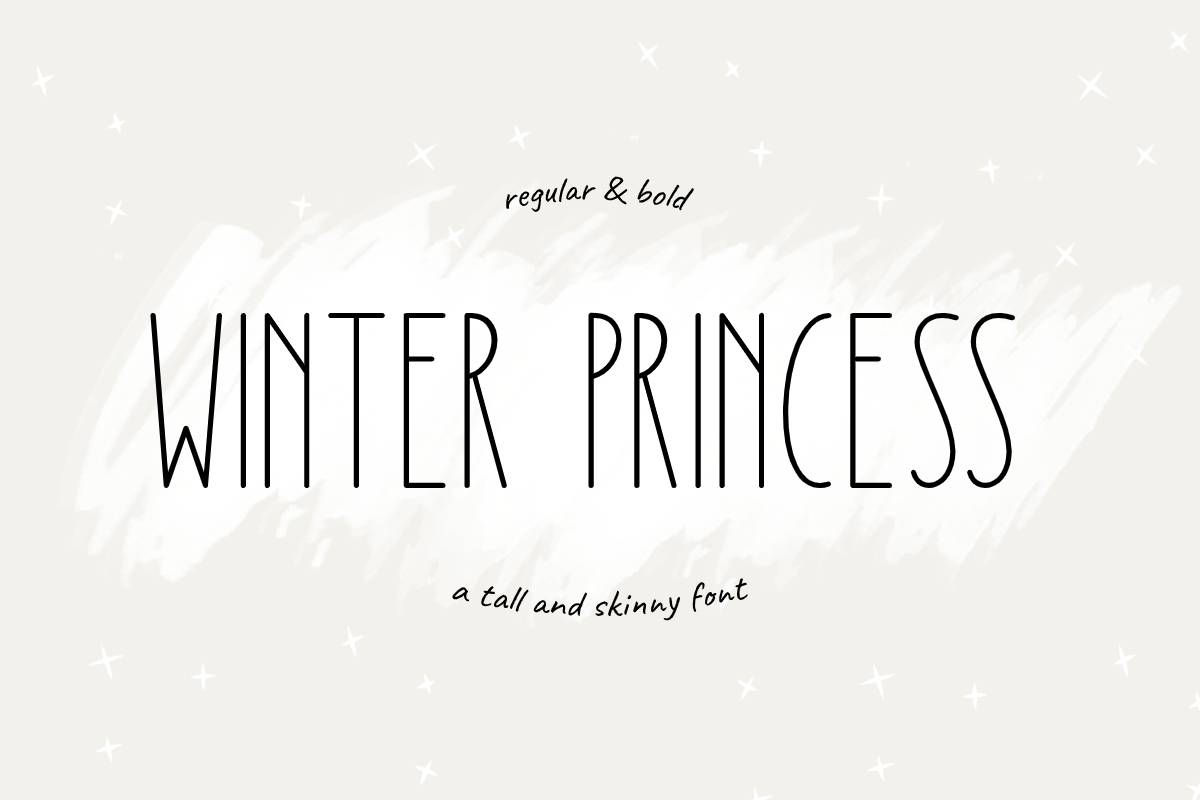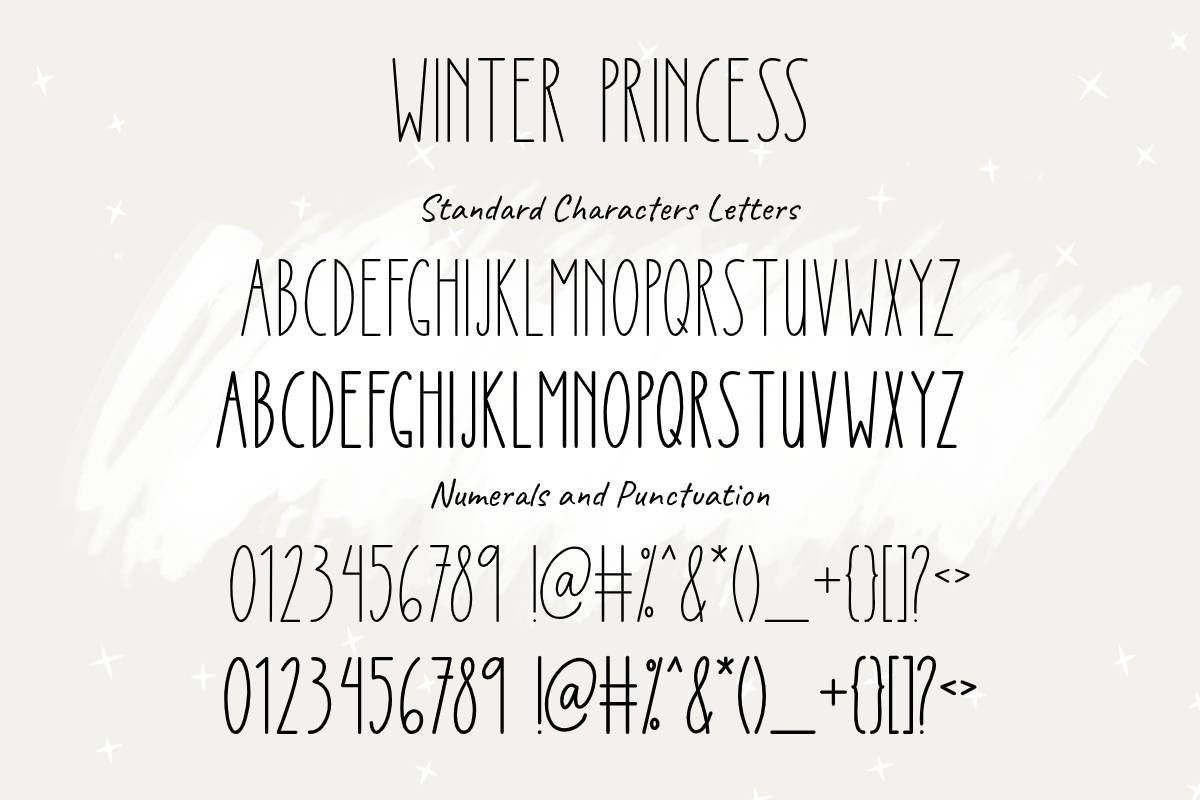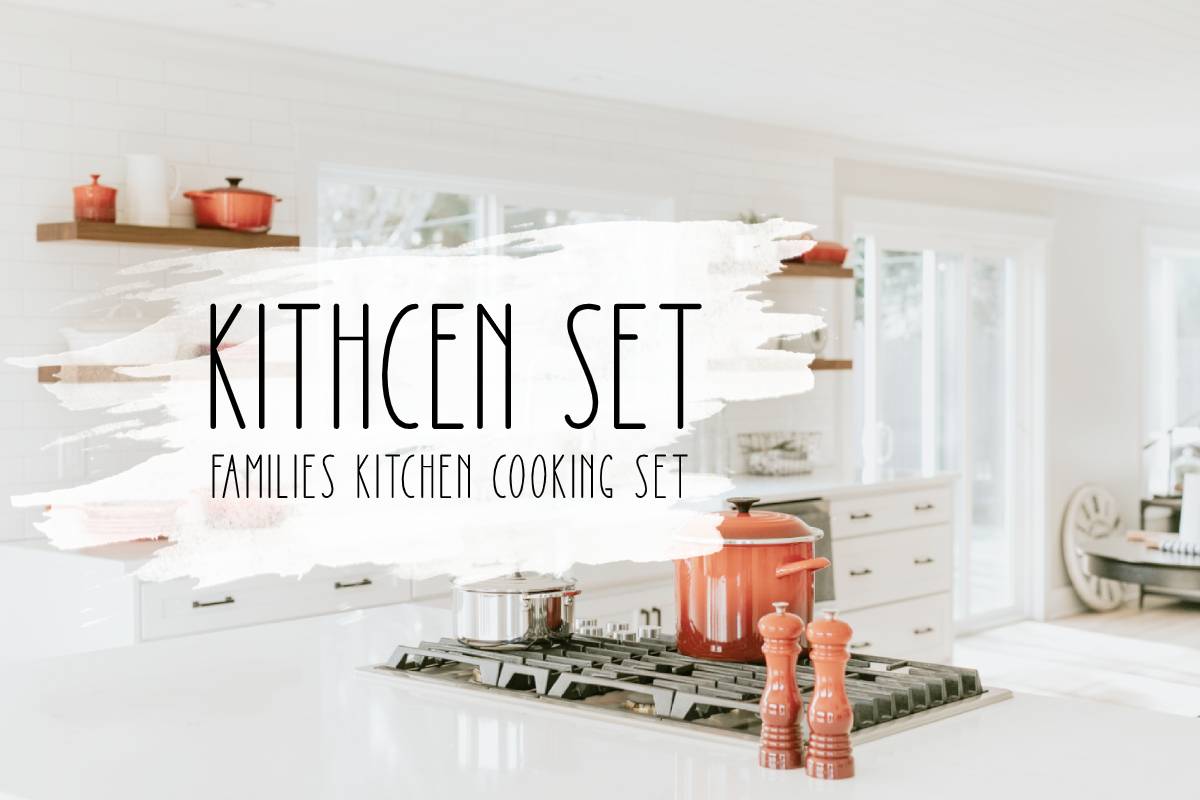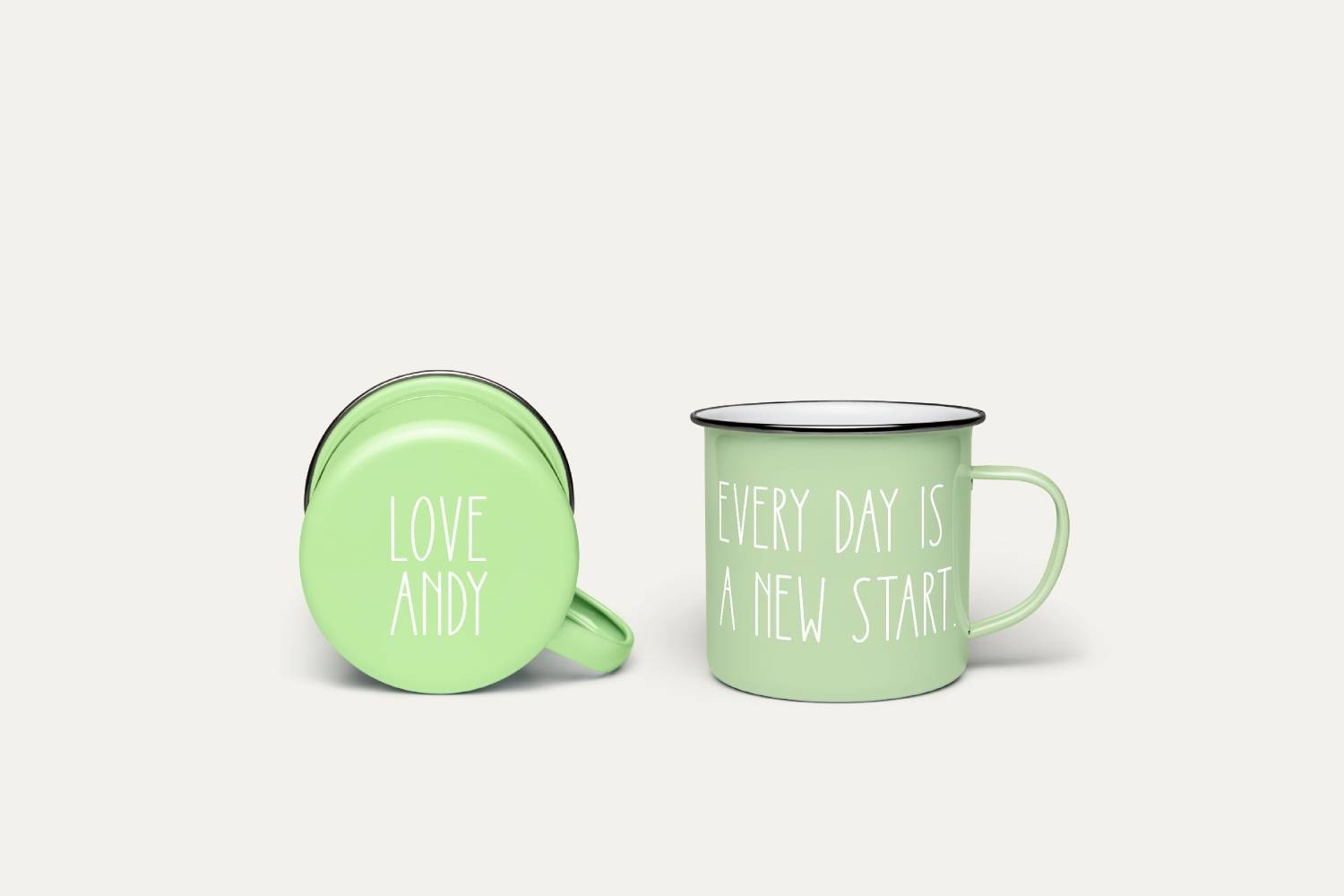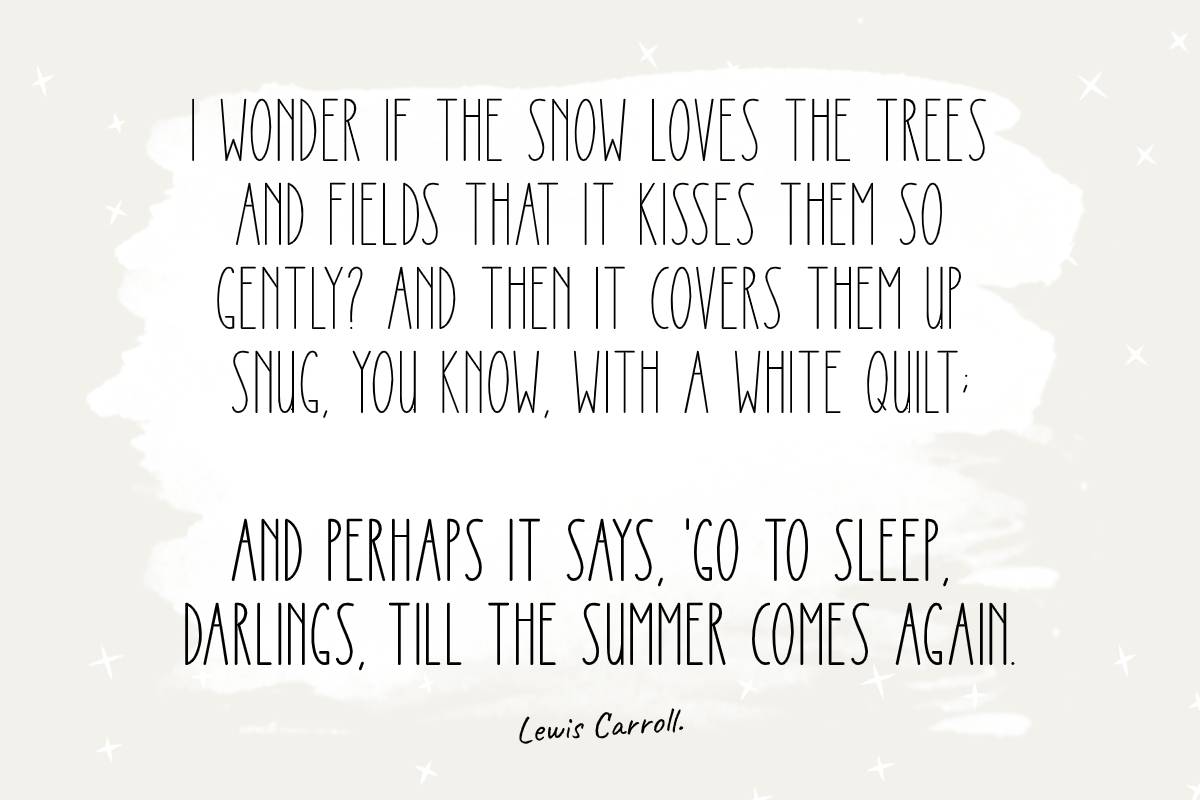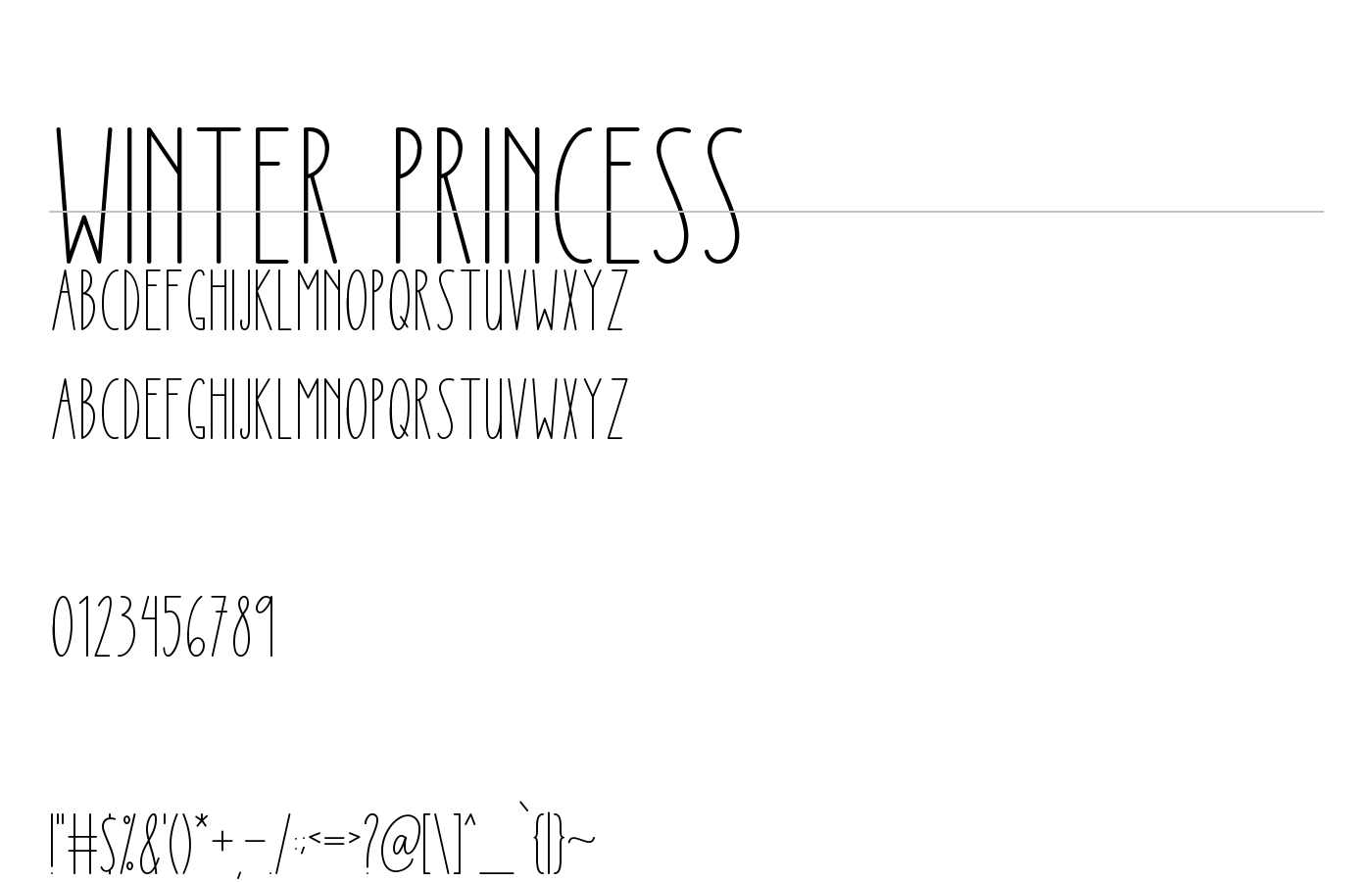
Winter Princess is a tall, narrow sans serif font with a delicate and airy feel, featuring thin, uniform strokes and a playful, slightly whimsical style. Its elongated letterforms and clean, minimalist design give it a modern yet charming personality, making it ideal for elegant headlines, fashion branding, or creative projects that seek a unique, graceful touch. Perfect for adding a sophisticated and ethereal vibe, this font works well in logos, invitations, and editorial layouts that need a light and stylish impact.
Winter Princess Font
About Winter Princess Font
| Font family | Winter Princess Font |
| Designer | Jamaludin |